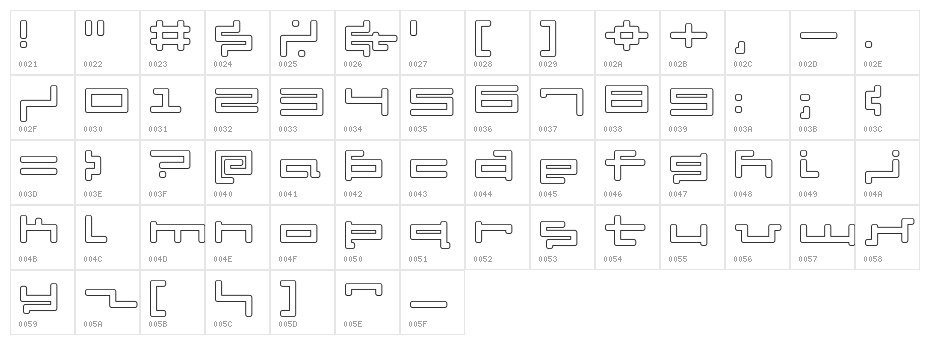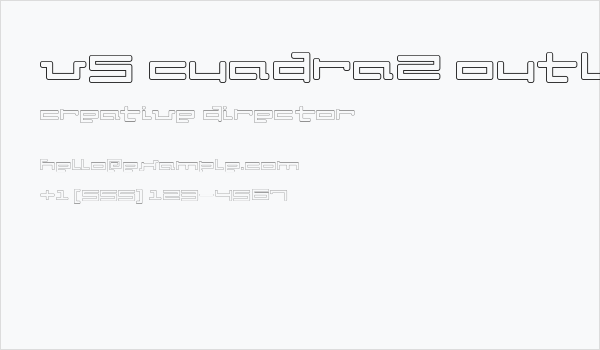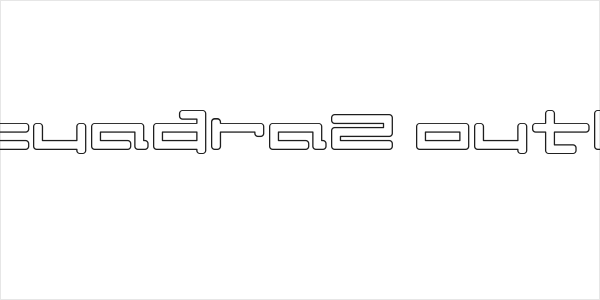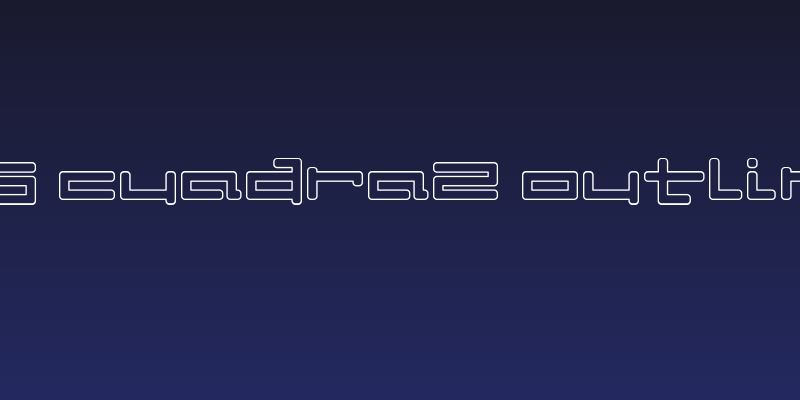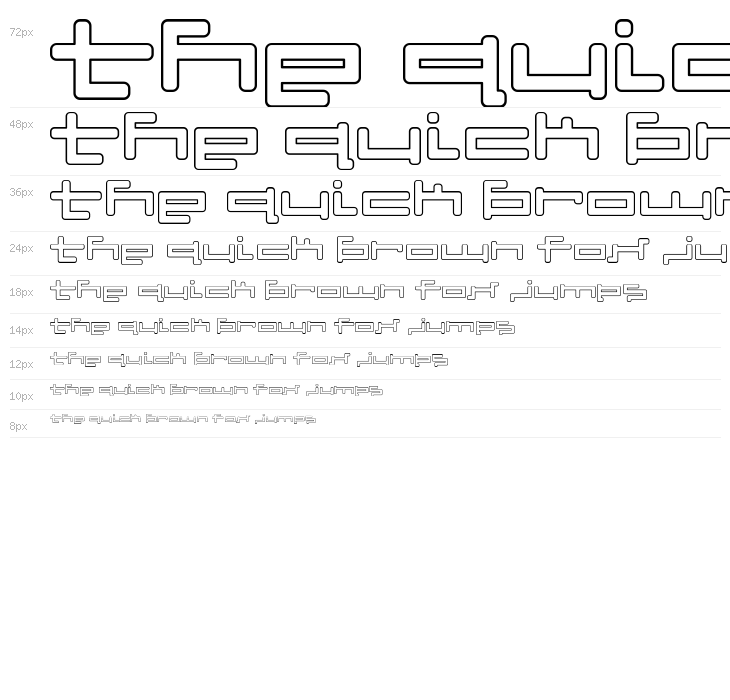
V5 Cuadra2 Outline Font
V5 Cuadra2 Outline Description
This font features a unique, futuristic outline style with a geometric and modular appearance. Each character is constructed with consistent line thickness, creating a cohesive and uniform look. The letters are composed of straight lines and right angles, giving them a mechanical and digital feel. The spacing between characters is even, contributing to a clean and organized presentation. The font's design is minimalistic yet distinctive, making it suitable for modern and tech-oriented projects. Its outline nature adds a layer of depth and interest, allowing it to stand out in various design contexts.
| Proposed Projects | Ideal for tech branding, digital interfaces, futuristic posters, and sci-fi themed designs. |